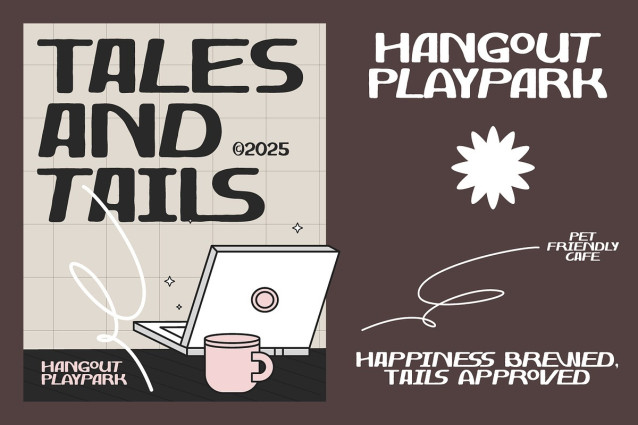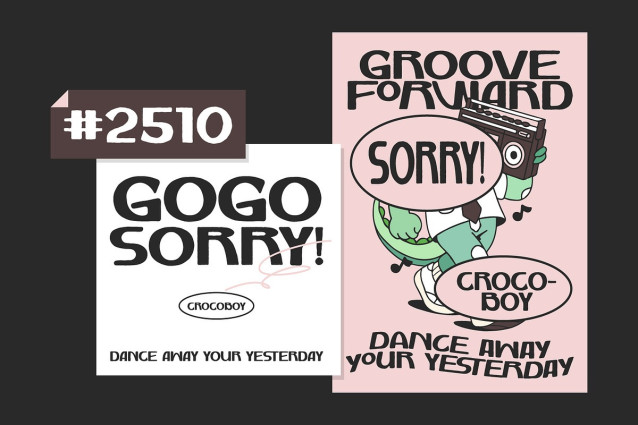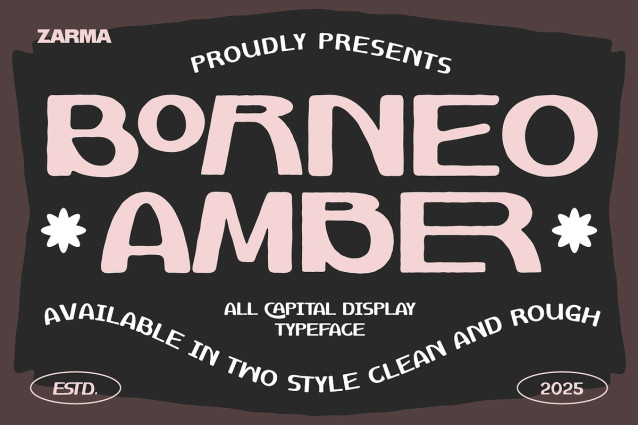
Borneo Amber Font
Borneo Amber Font is a modern vintage font that captures the warmth of nostalgia with the bold confidence of contemporary design. Its structured letterforms combine clean geometry with soft curves, creating a balanced look that feels both industrial and handmade. This font evokes retro energy without losing modern clarity, making it ideal for brands that value heritage, creativity, and timeless personality. The mix of clean and rough styles enhances its flexibility, allowing you to shift between polished sophistication and organic charm.
Inspired by vintage signage and early 20th-century typography, Borneo Amber works beautifully in branding projects that need boldness and authenticity. Whether for packaging, posters, or cafe logos, it adds a sense of craftsmanship and character to every layout. Designed with all-caps precision and multilingual support, this font gives you the tools to communicate confidence, consistency, and modern nostalgia in one distinctive typeface.